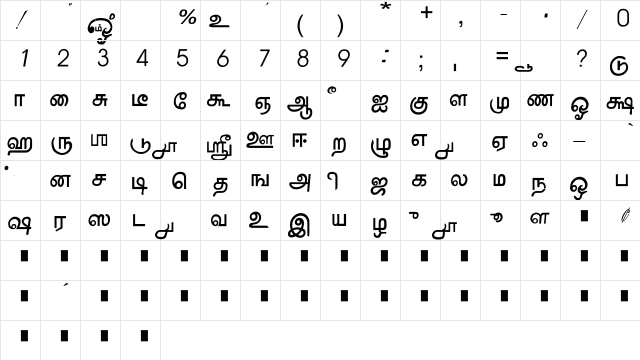
AATMZL Regular
Design Context for AATMZL Typeface
AATMZL offers clean, dependable letterforms without strong stylistic allegiance, making it a practical choice for designers who need flexibility.
Pro Tip: Use AATMZL in both headline and body roles to test its range before committing to a single application.